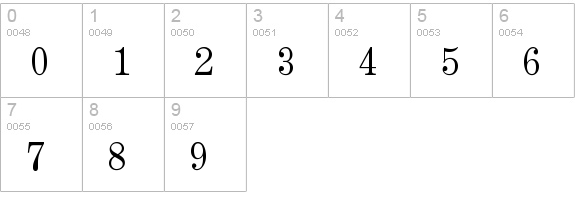
Century ATF Expanded Font Details
Century ATF Expanded is a distinctive, extended-width variant in the Century typeface family \xE2\x80\x94 well suited to design and typography projects.
Century ATF Expanded is a versatile and modern font that exudes sophistication and elegance. With its clean lines and bold presence, this typeface is perfect for making a statement in your designs. The wide letterforms of Century ATF Expanded give it a unique and eye-catching appearance, making it ideal for headlines, posters, and branding materials. What sets Century ATF Expanded apart is its ability to convey a sense of authority and professionalism while still being approachable and easy to read. Whether you're designing a sleek corporate brochure or a stylish invitation, this font will elevate your project to the next level. Best of all, Century ATF Expanded is available for free download at FontsMarket.com. So you can enjoy the benefits of this exceptional font without any cost. Don't miss out on this opportunity to enhance your designs with Century ATF Expanded's timeless appeal and contemporary flair.